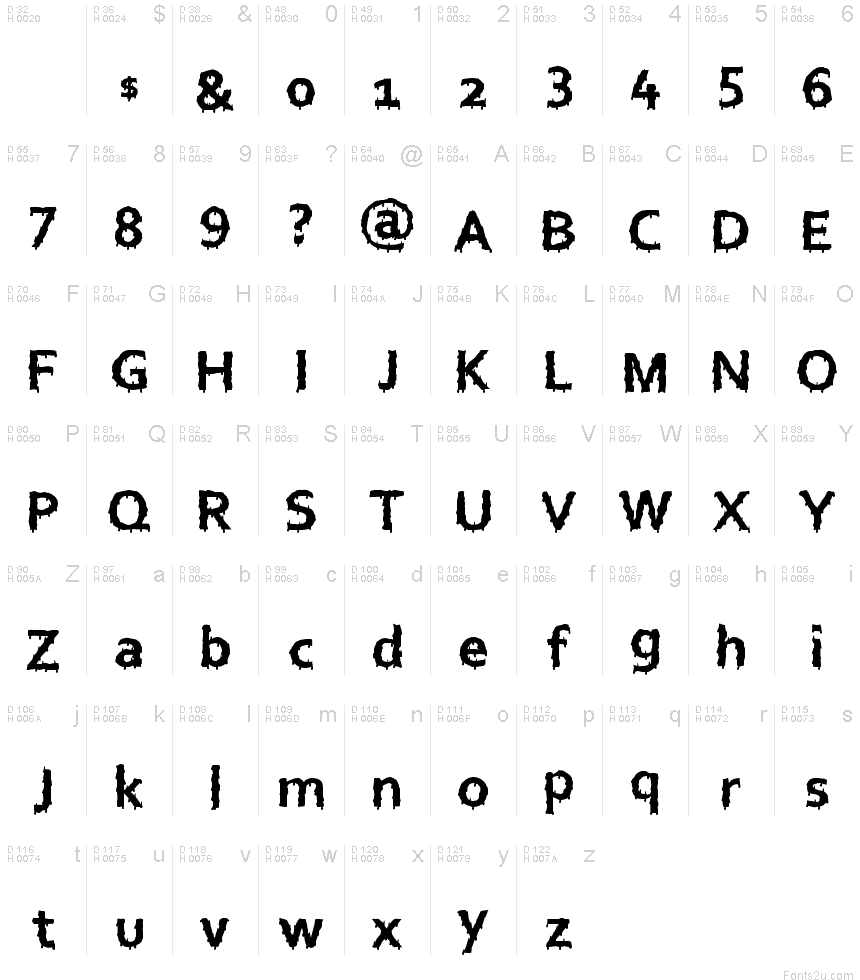
EuroHorror by Xerographer Fonts is a free scary display font with blunt, uneven letters. Its thick strokes sag at the edges, punctuated by small drips and ragged cuts. Changing heights give the line a hastily painted, unstable look.
Horror film posters are its clearest home, since the damaged shapes resemble crude warning signs. It also fits haunted-house promotions, Halloween merchandise, and heavy-music artwork. The font is strongest in titles meant to look threatening and freshly daubed.
The font includes special-use and euro characters, including ń.